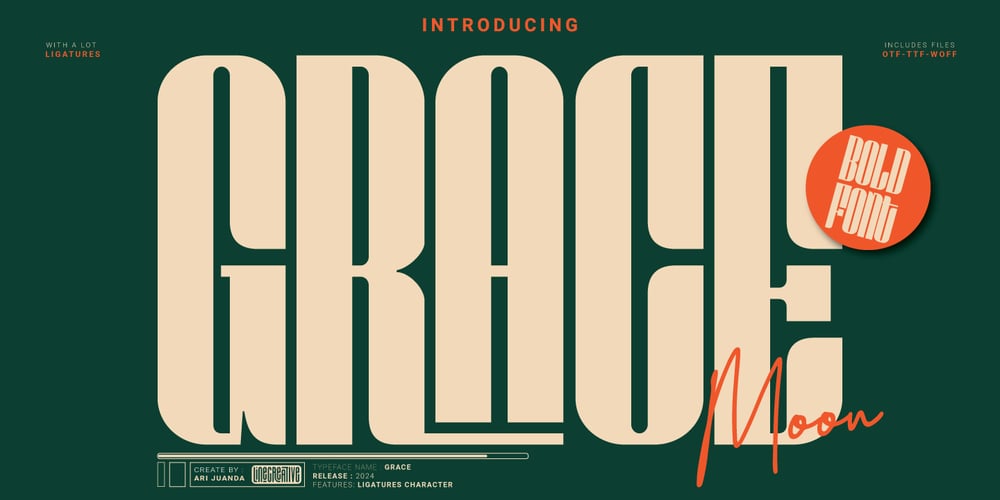
Grace moon
Grace moon font
Grace moon Font Family was designed by Ari Juanda and published by Linecreative. Grace moon contains 1 styles and family package options. Grace is an elegant Bold Condensed font display with a classic touch, with lots of ligatures and also Supports Multi linguage (Latin Western Europe),Numbers and Punctuation suitable for various design applications!,